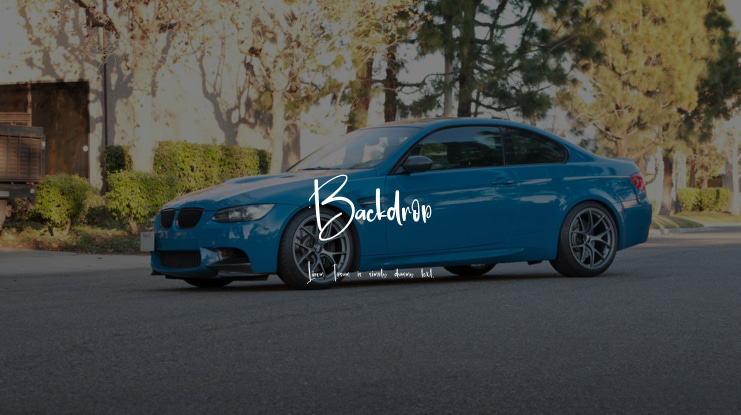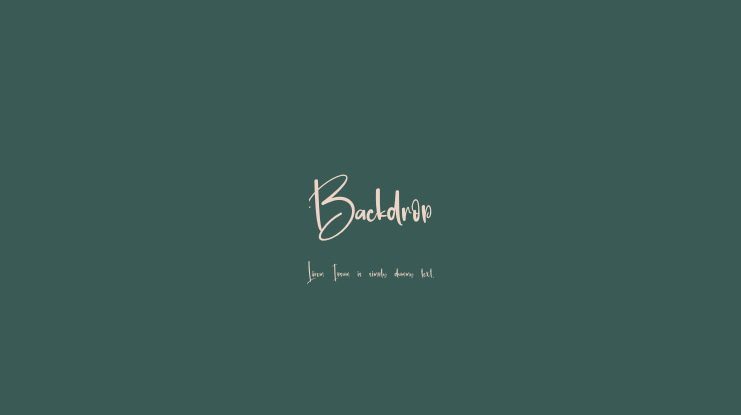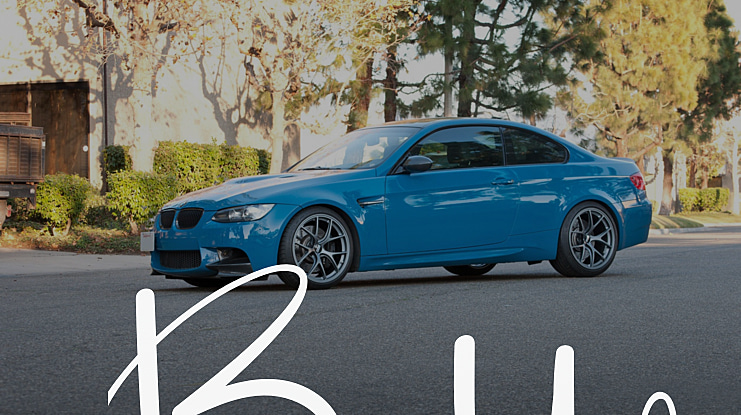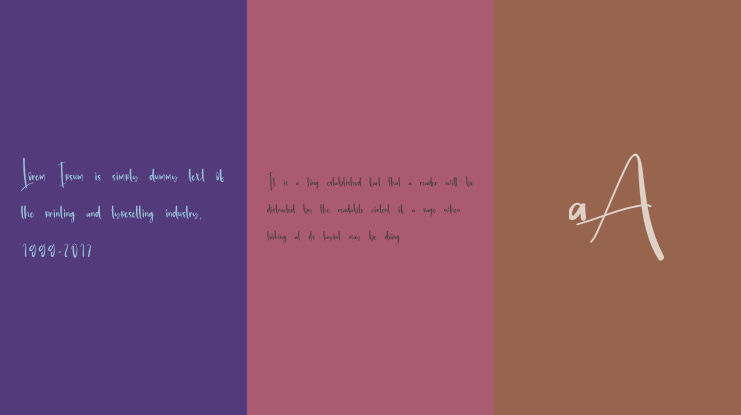
Backdrop Font
Our cutting-edge letter designs are perfect for enhancing your walls, creating captivating wedding invitations, crafting engaging social media post logos, developing eye-catching advertisements, designing attractive product packaging, creating distinctive labels, adding an artistic touch to your photography, applying professional watermarks, sending elegant invitations, and completing any project that requires tasteful handwriting.